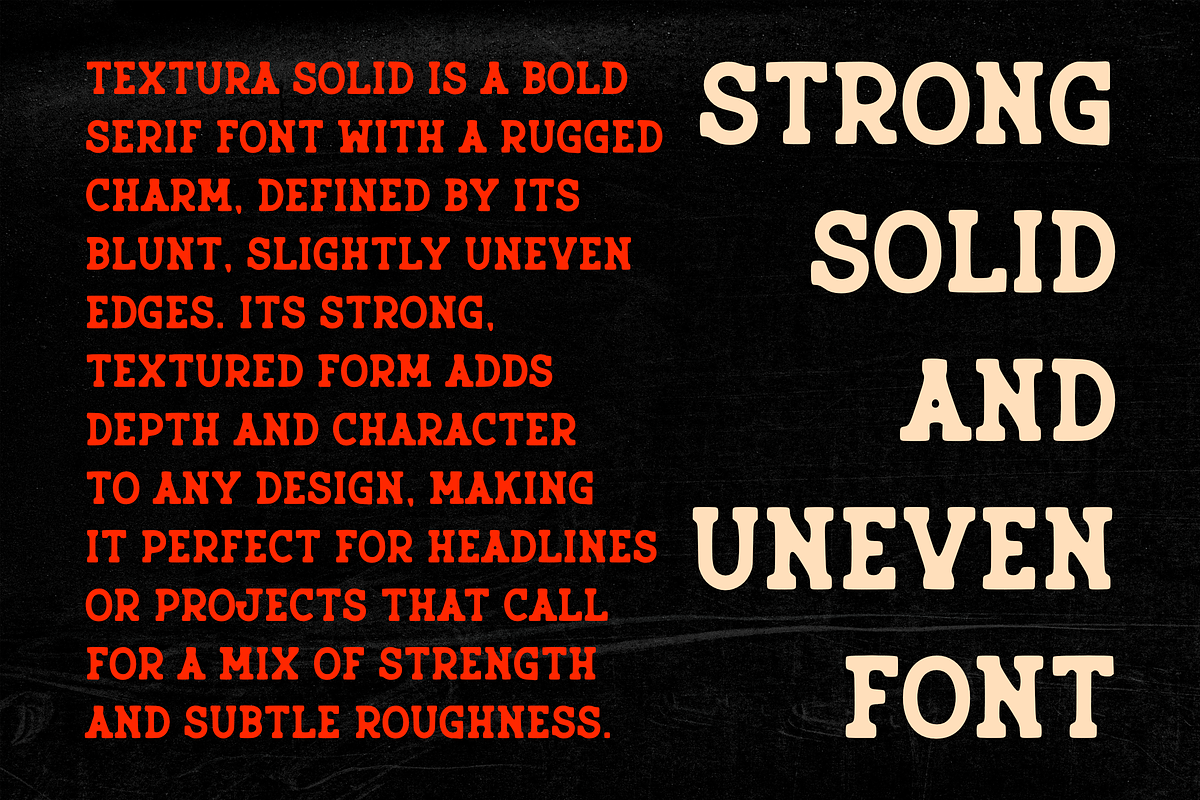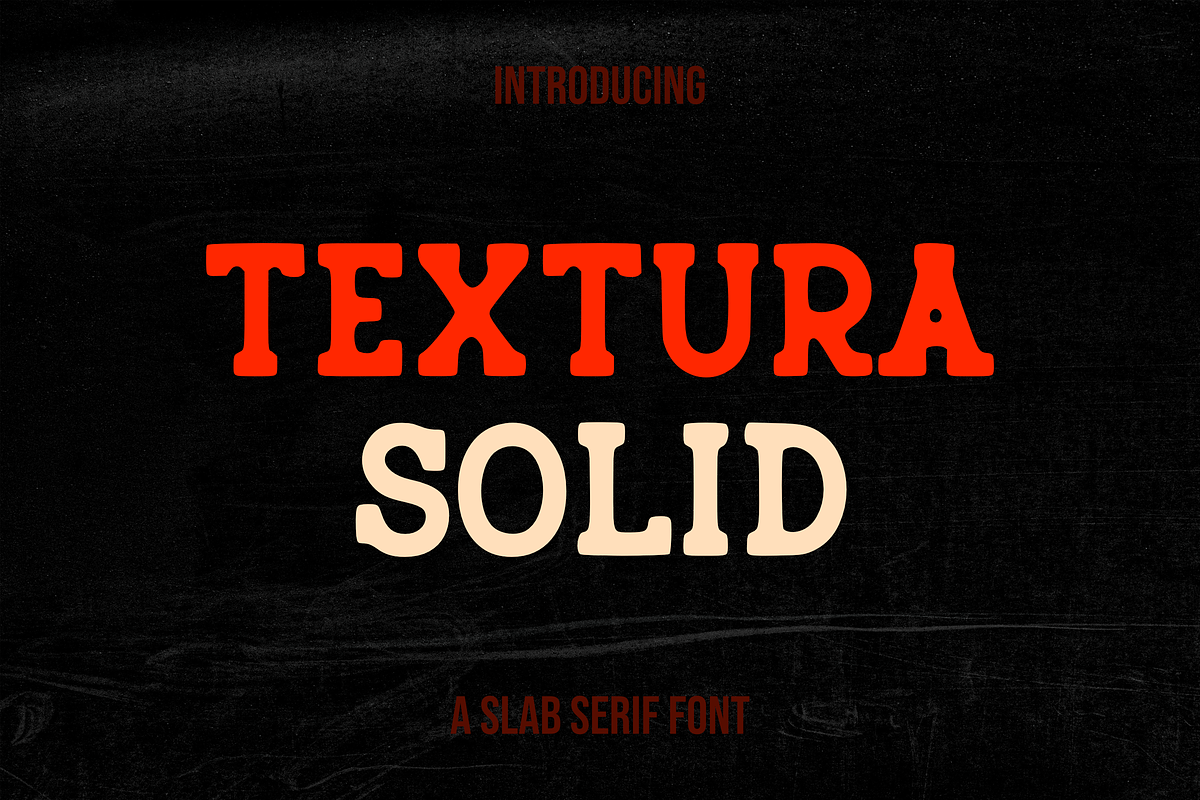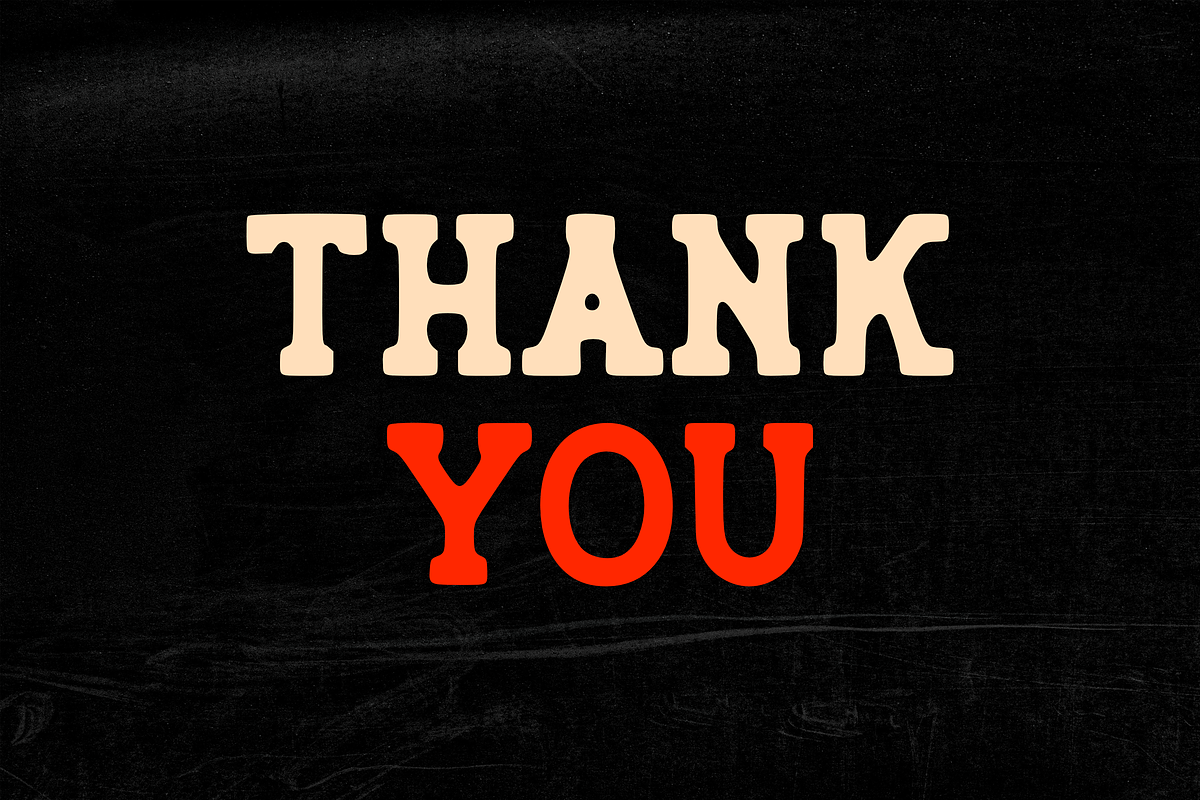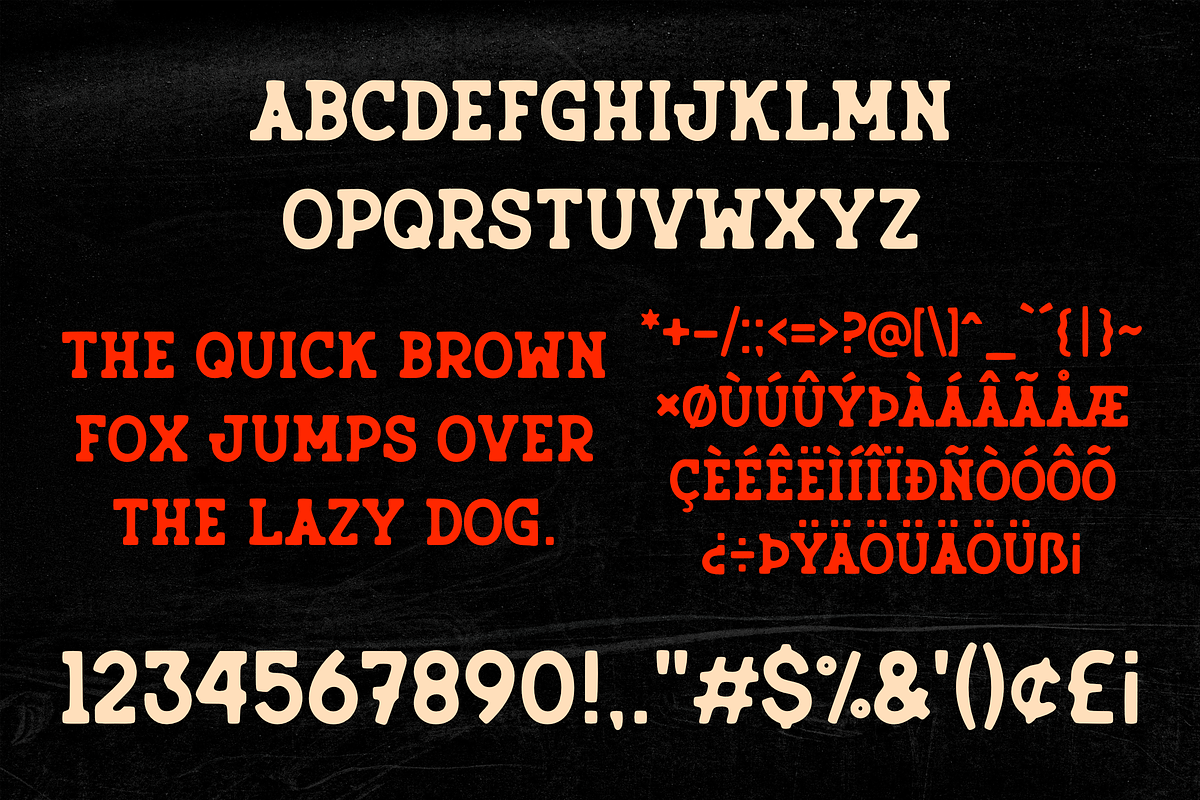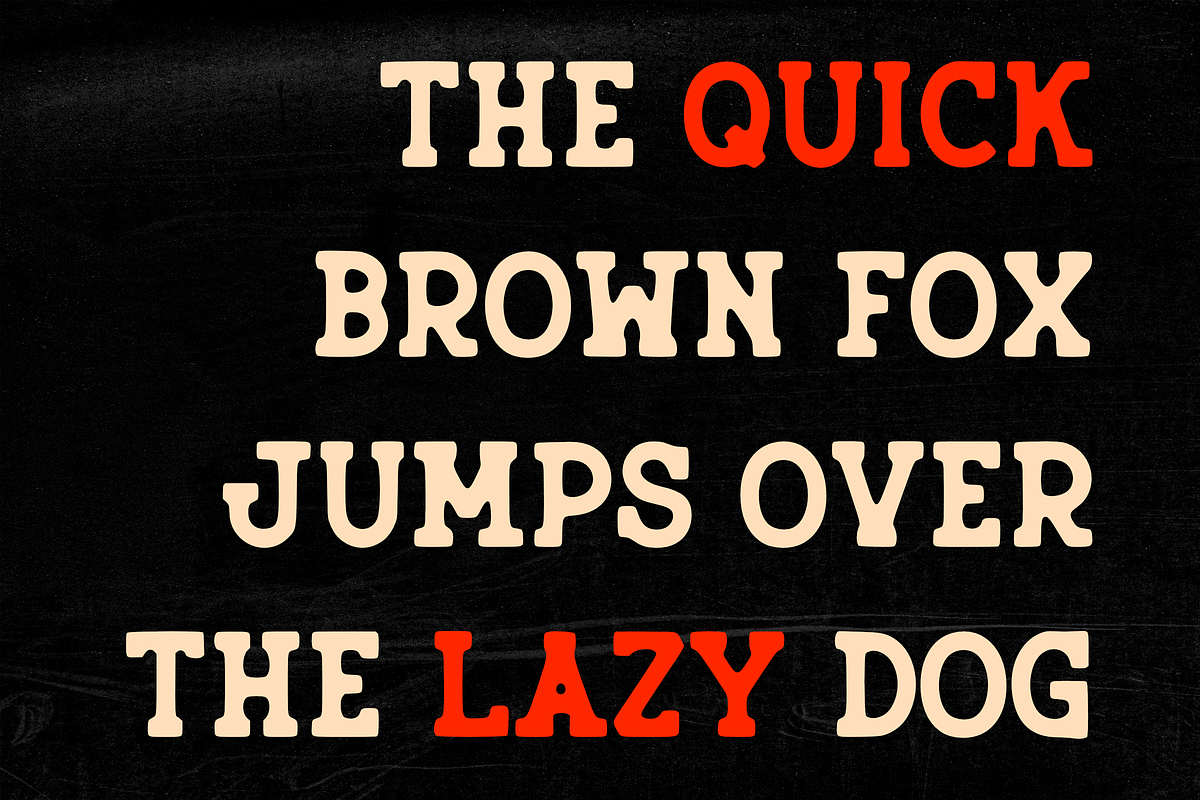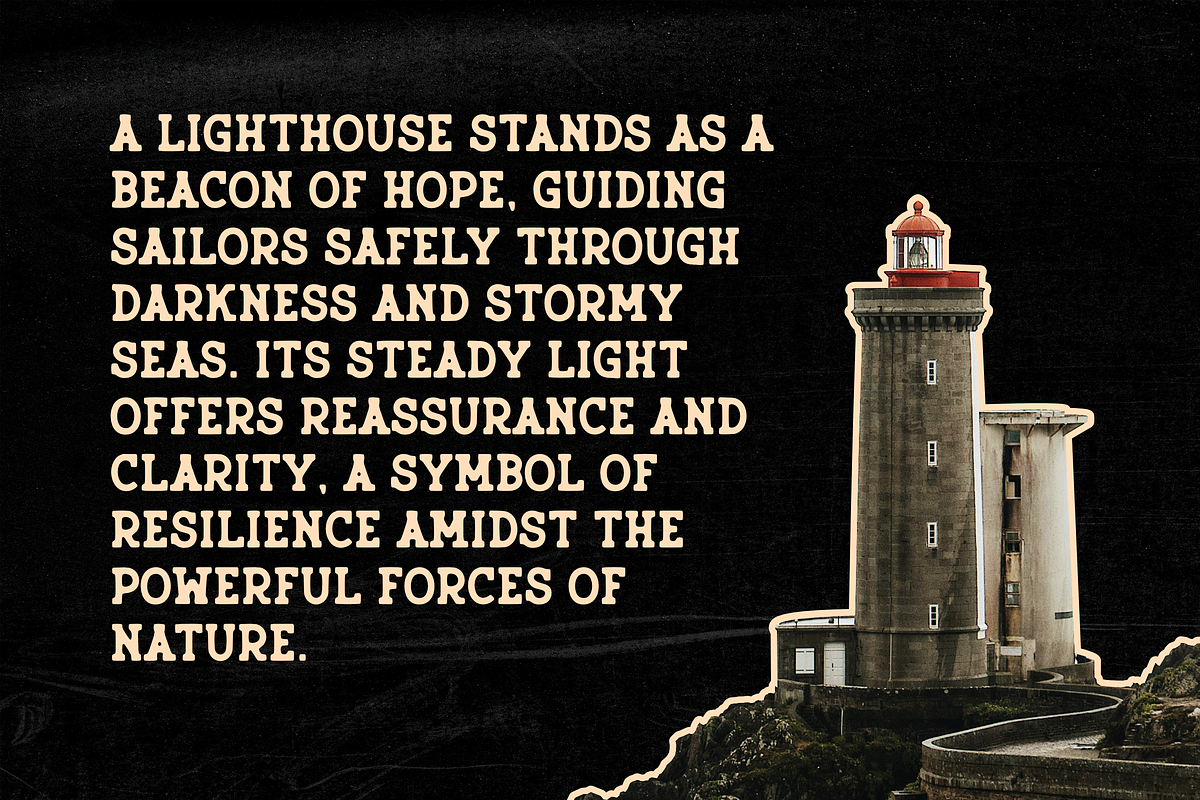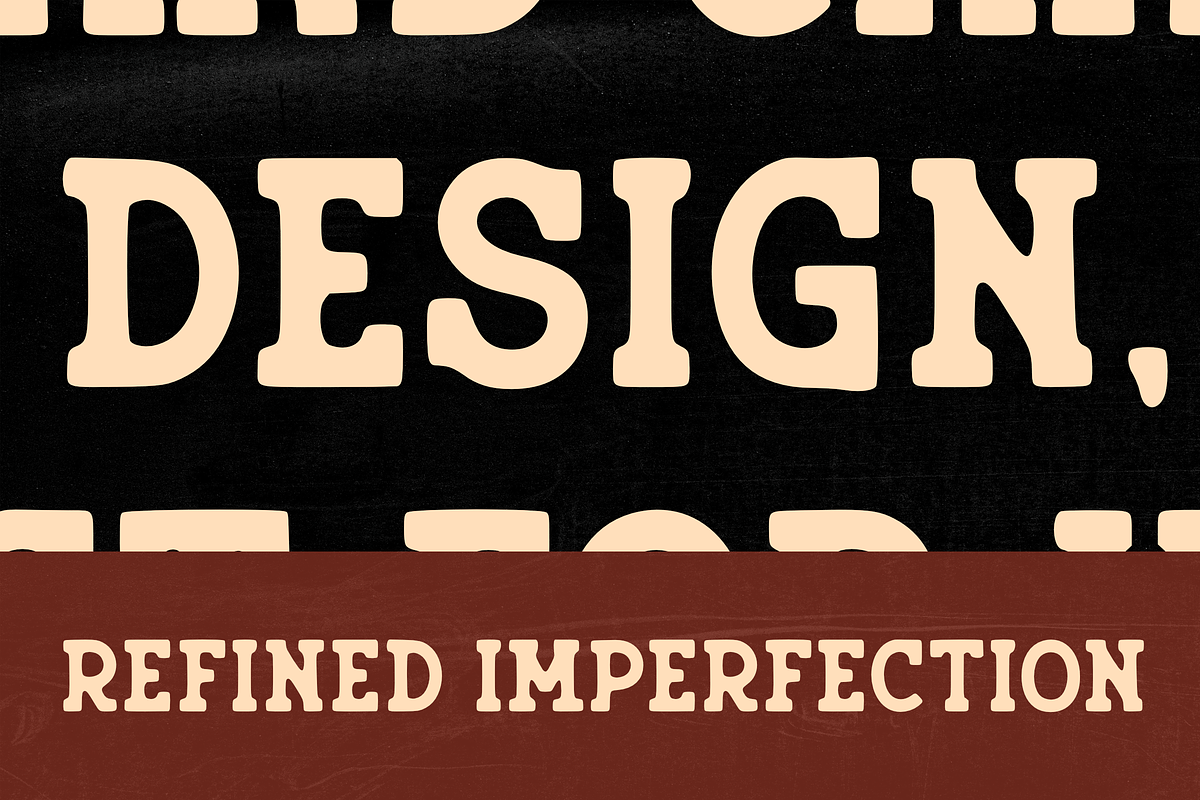
Textura Solid
Textura Solid is a bold serif font with a rugged charm, defined by its blunt, slightly uneven edges. Its strong, textured form adds depth and character to any design, making it perfect for headlines or projects that call for a mix of strength and subtle roughness.